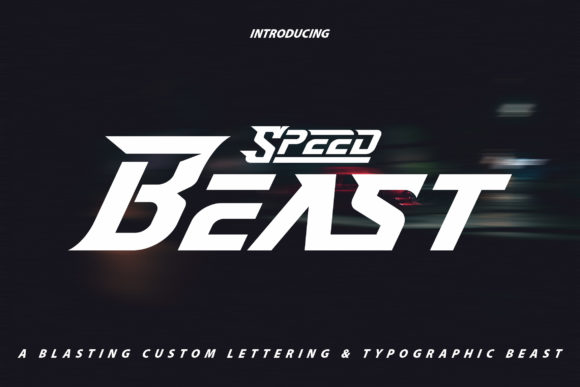
Welcome to the exhilarating world of Speed Beast Font, the apex predator of display fonts, designed to ignite your creative spirit and unleash your inner champion. Speed Beast is not just a font; it's a weapon of mass seduction, capable of captivating audiences and leaving a lasting impact on their minds.
Picture this: you're working on a project that demands an adrenaline-fueled, high-octane aesthetic. Your designs need to exude the raw power and untamed energy of a raging storm. Speed Beast Font is your secret weapon, the key to unlocking a world of possibilities.
Crafted by the visionary minds at Vunira, Speed Beast Font is a masterpiece of digital art, meticulously engineered to evoke a sense of speed, aggression, and triumph. Its bold and muscular letterforms command attention, while its sharp angles and dynamic curves create a visual symphony that's impossible to ignore.
With Speed Beast Font at your disposal, you'll conquer the design realm, leaving your competitors in the dust. Whether you're creating logos that roar with power, posters that electrify the senses, or website designs that leave visitors breathless, Speed Beast Font is your ultimate weapon.